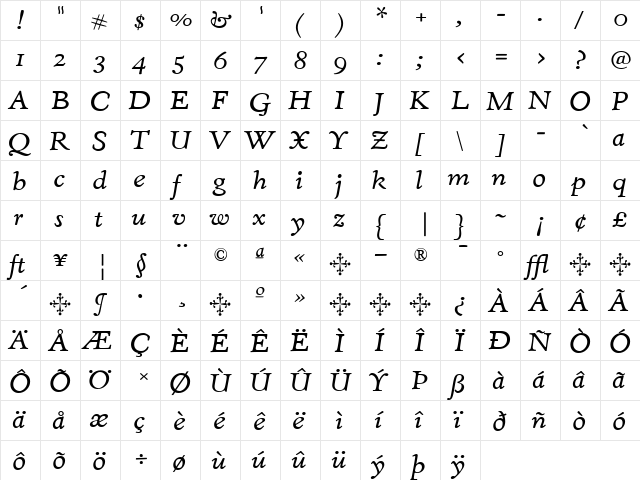
EldoradoMicro Italic
| Foundry | The Font Bureau, Inc |
Design Context for EldoradoMicro Typeface
EldoradoMicro offers clean, dependable letterforms without strong stylistic allegiance, making it a practical choice for designers who need flexibility. The dynamic lean of this cut emphasises speed and emphasis in any layout.